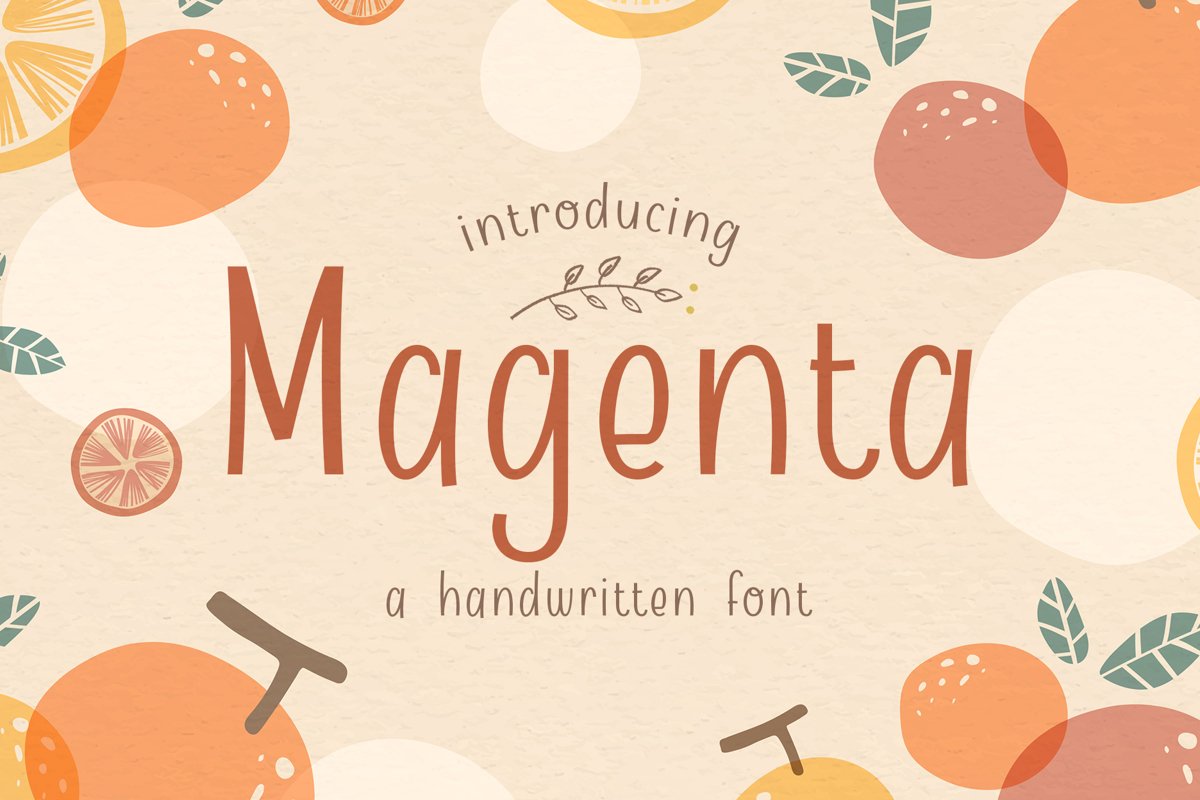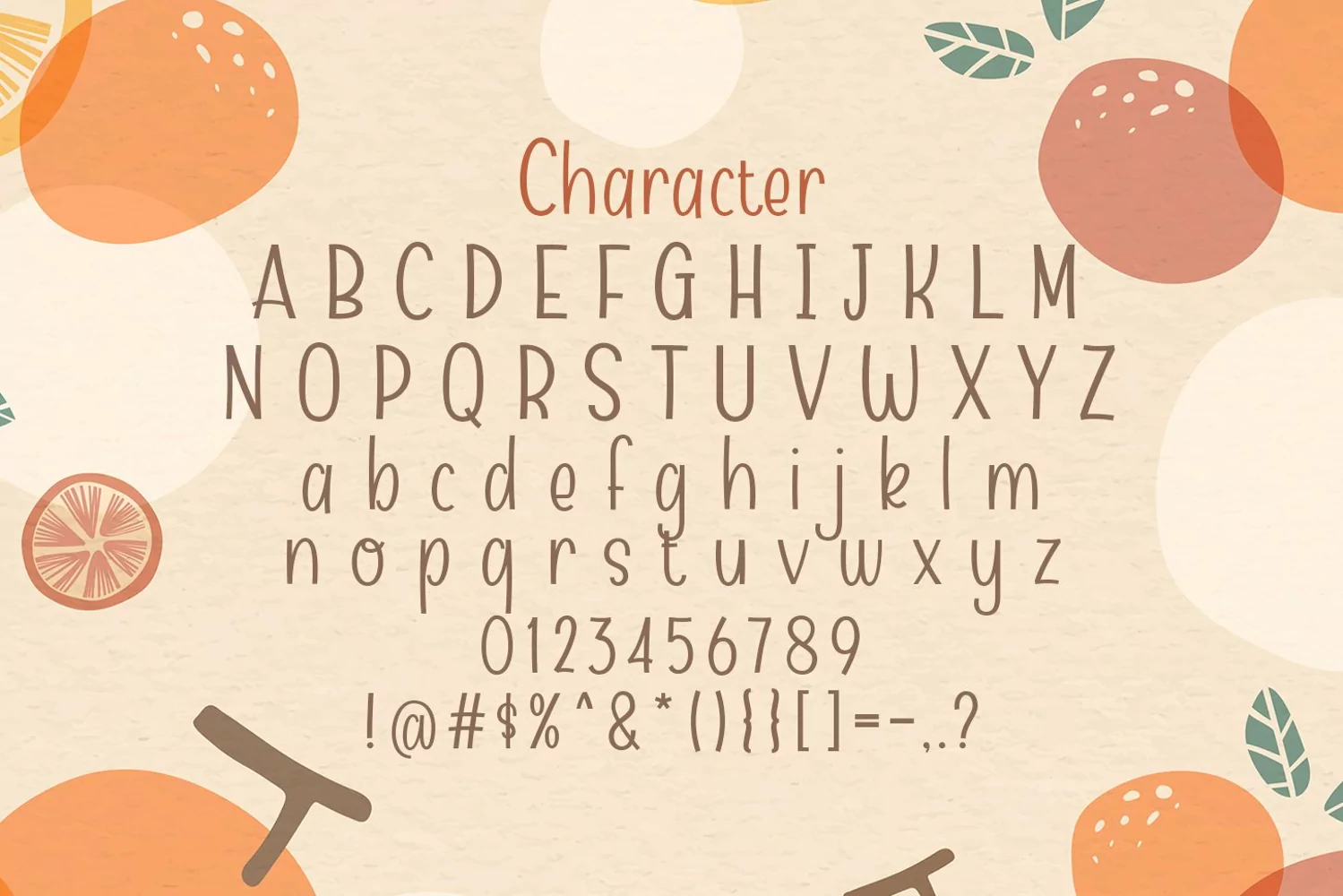
Magenta
Magenta is a display typeface. Perfect for display, quotes, logo, logotype, branding, emblem, badges, packaging, merchandise, price tag, crafting needs, business card and many more.